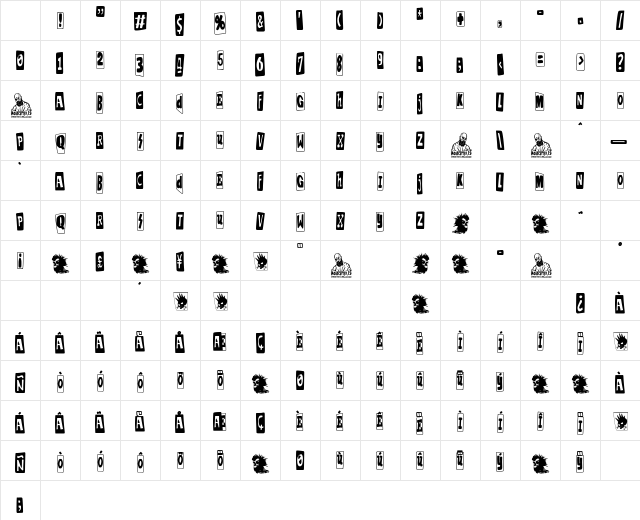
Punk Homo Erectus Regular Free Font
Punk Homo Erectus Regular
Designer: Woodcutter Manero
Design Context for Punk Homo Erectus
Punk Homo Erectus is a composed and adaptable typeface that performs quietly and consistently across a wide range of design contexts.